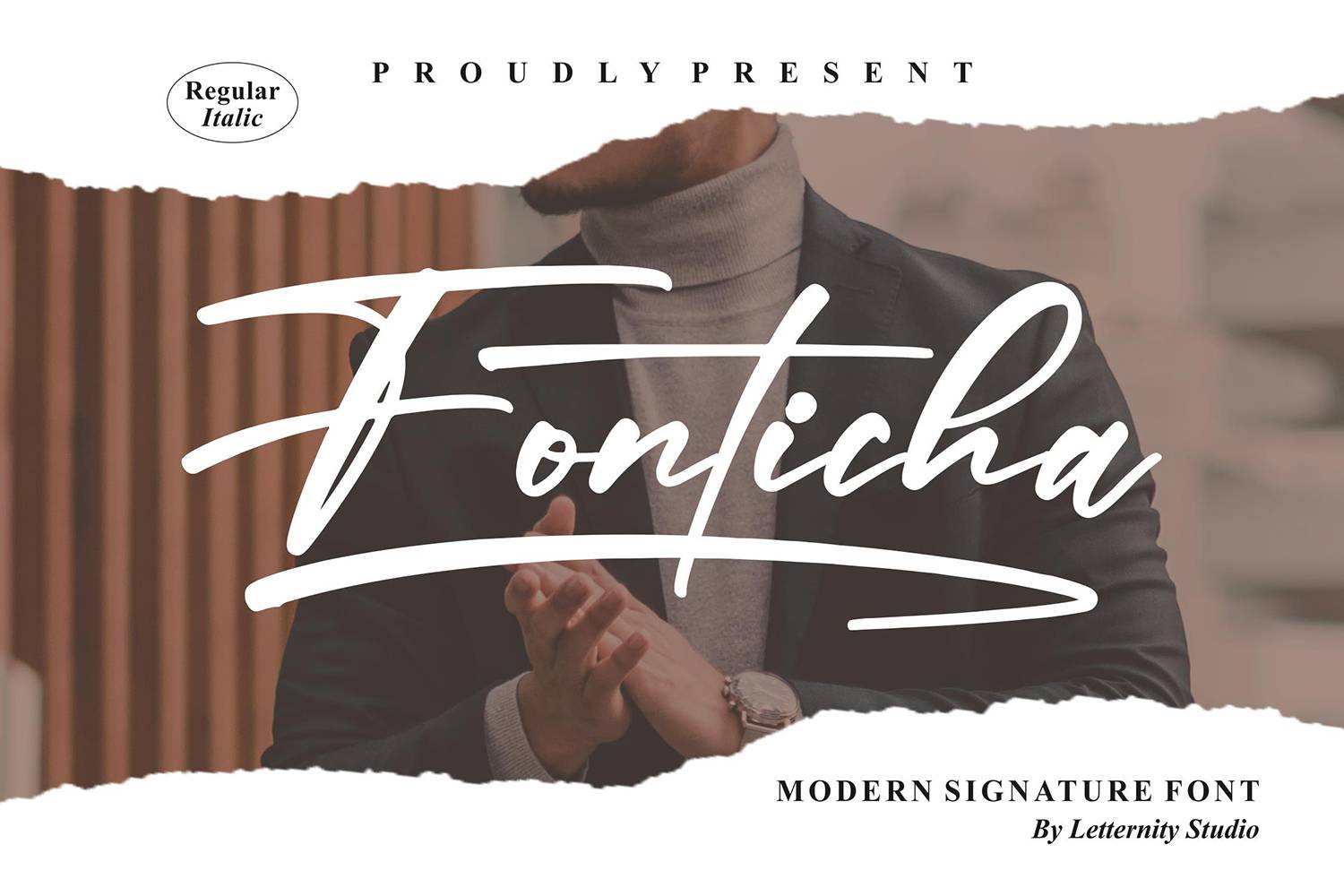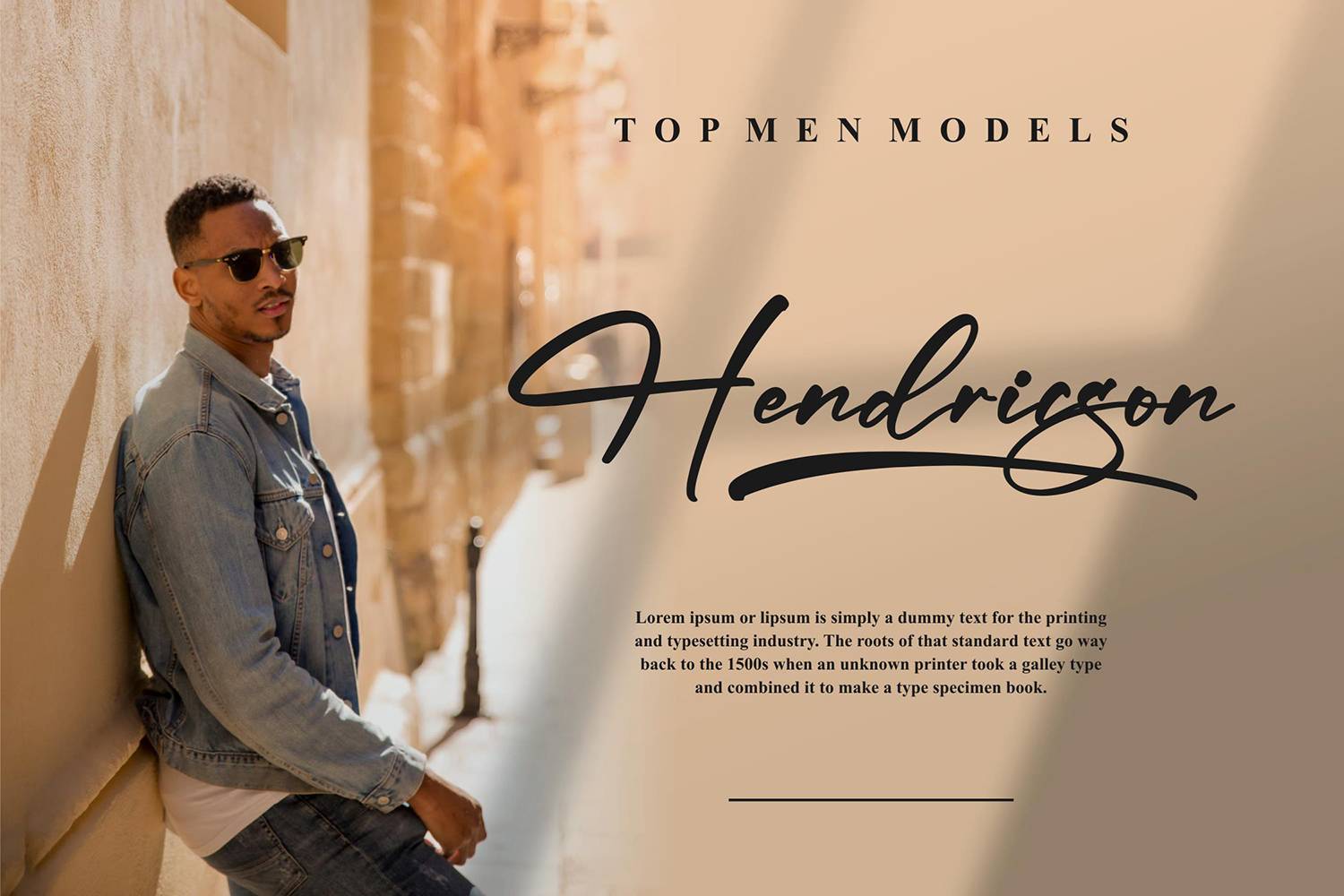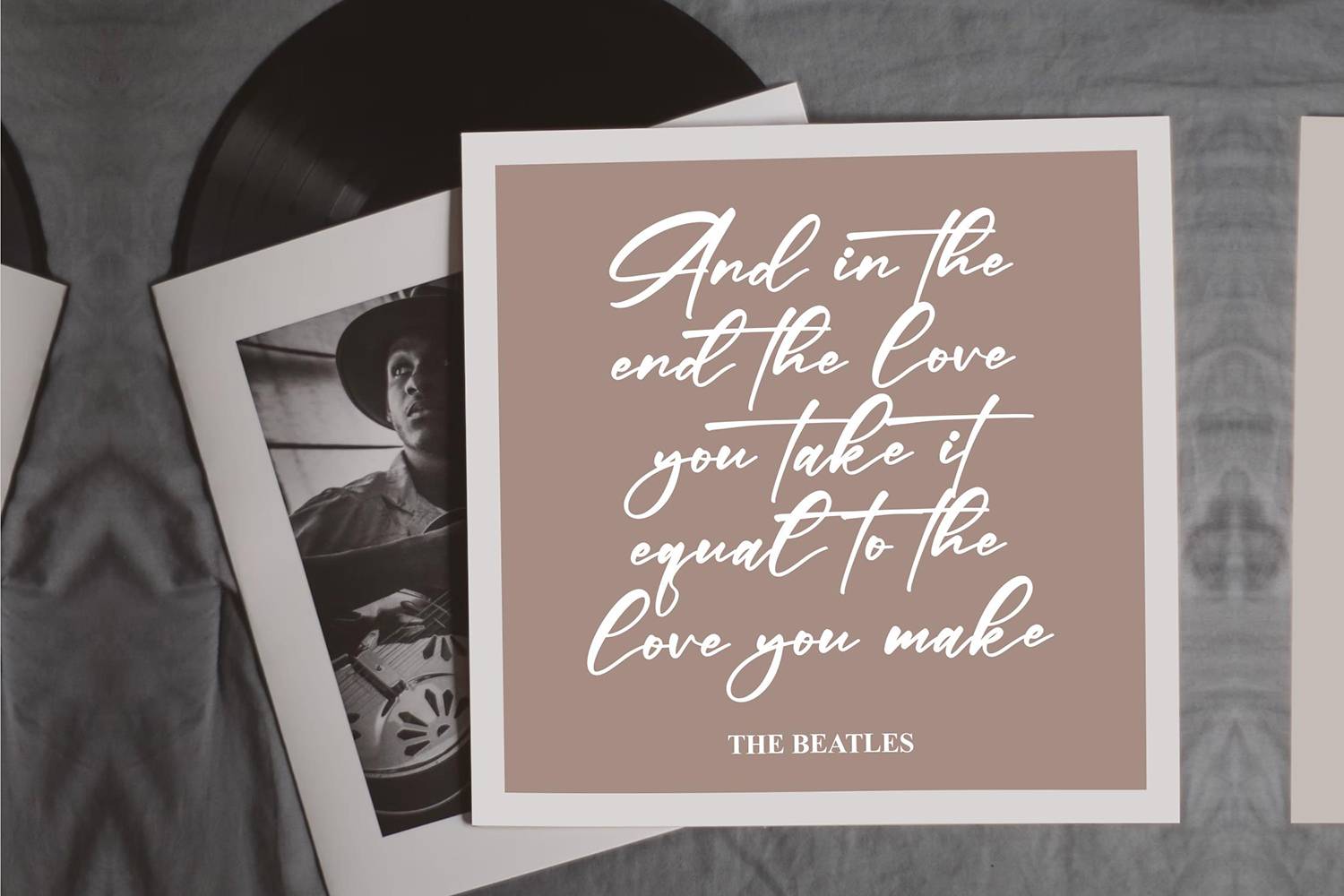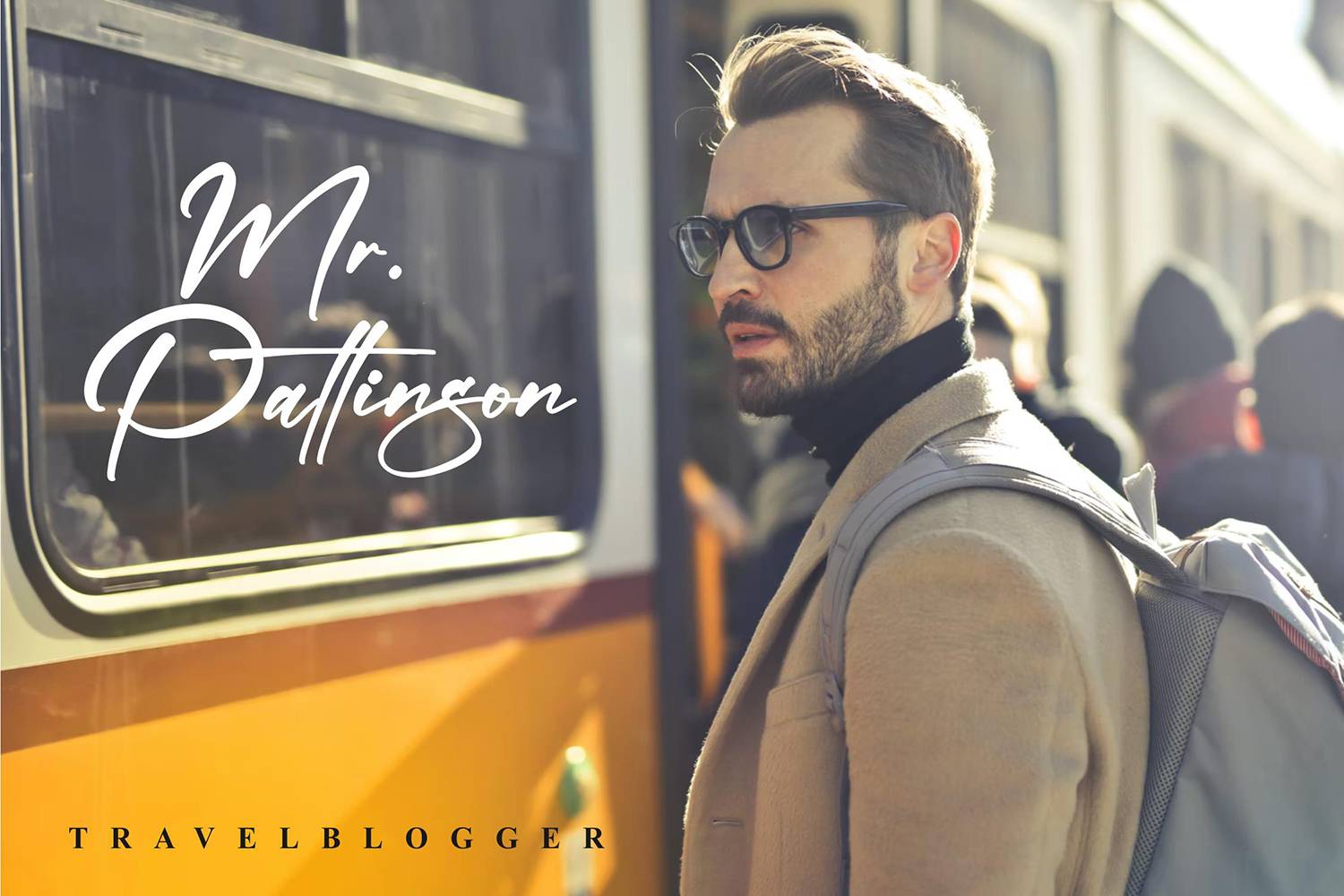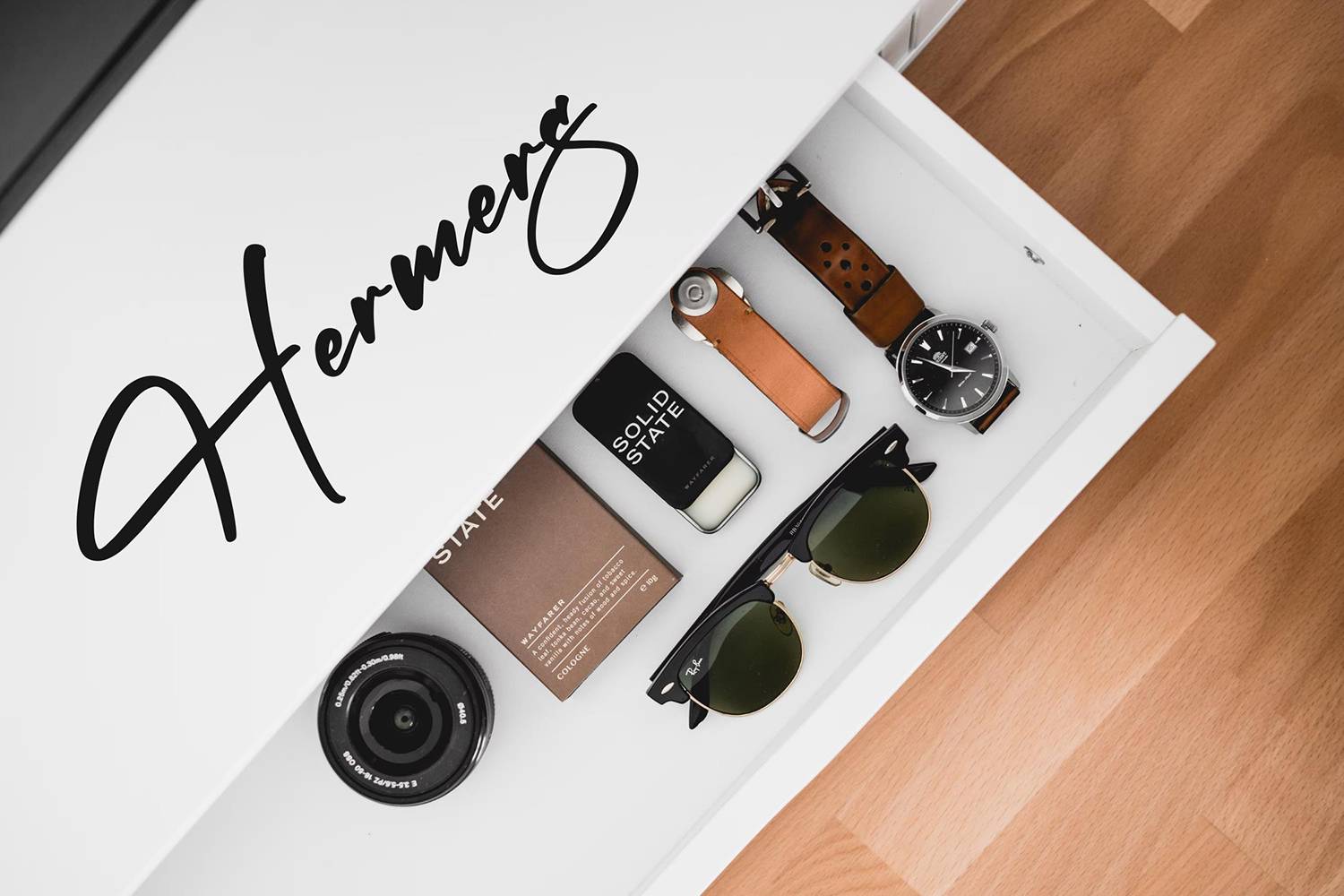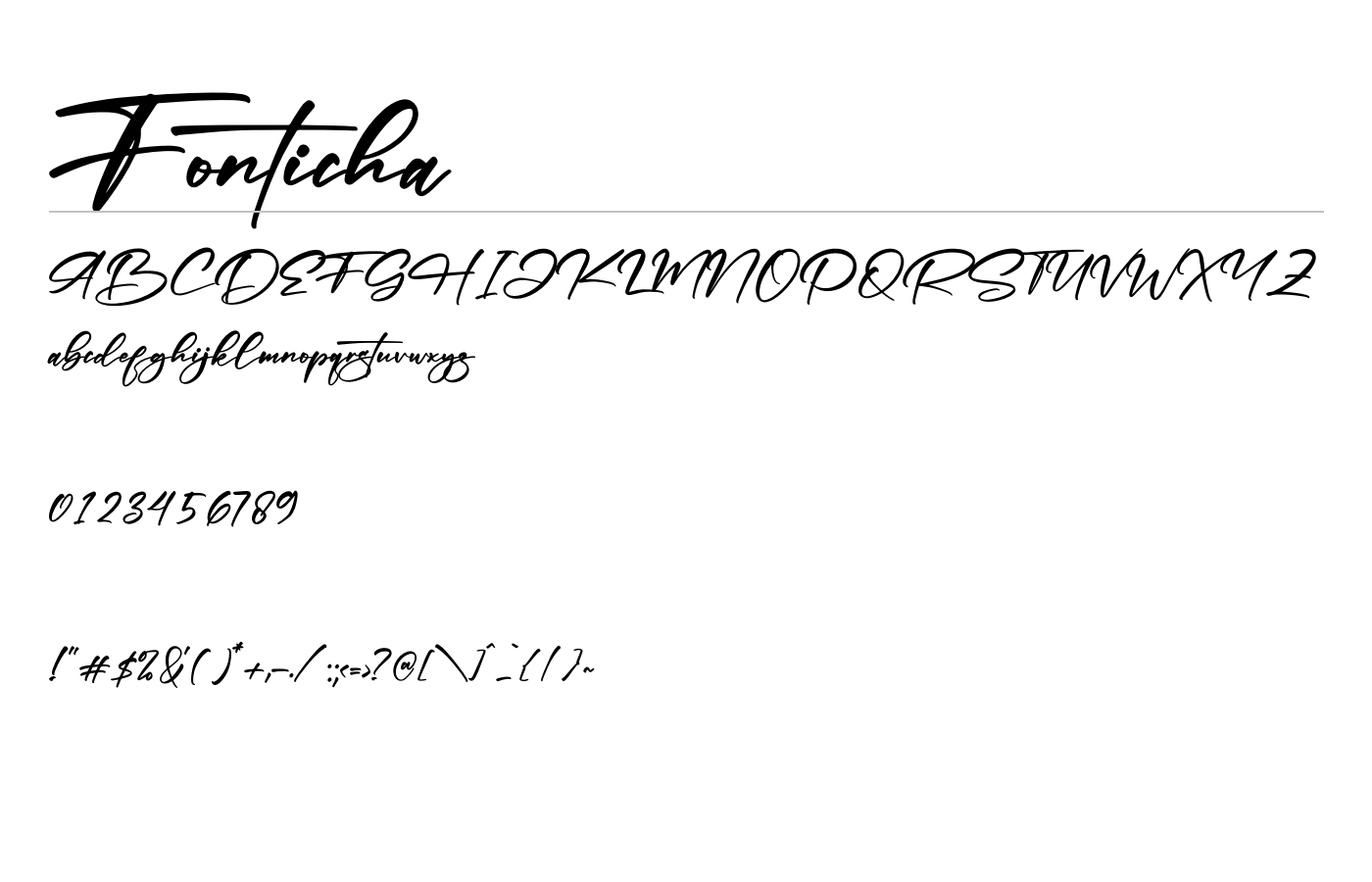
Fonticha is a graceful script font featuring elegant, flowing lines with a slightly casual touch, making it feel both sophisticated and approachable. Its smooth, connected strokes and varied stroke weight give it a lively and handcrafted personality, perfect for branding, invitations, and stylish headlines that seek a personal and refined look. This font works beautifully where a touch of elegance and warmth is desired, such as in fashion, beauty, or luxury contexts.
Fonticha Font
About Fonticha Font